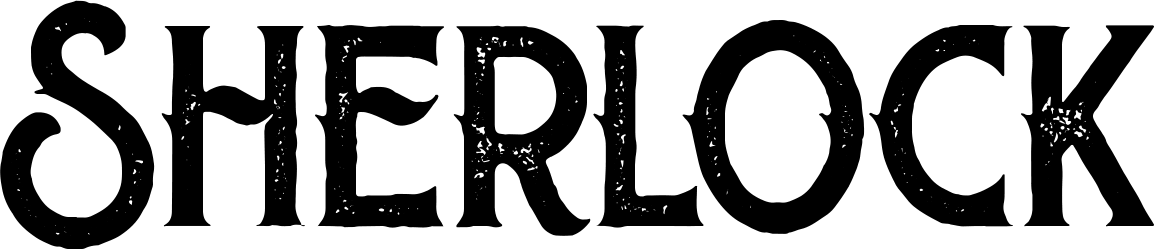
Sherlock Font
Sherlock font resembles specific movie titles and has a retro style that allows you to find so many areas to use, such as YouTube thumbnails, headings, old-time comic books, and retro-themed websites. This free barbershop font has a remarkable collection of characters. You find in this American tattoo font both the upper and lowercase of the alphabet, the numbers, the punctuation marks, etc.